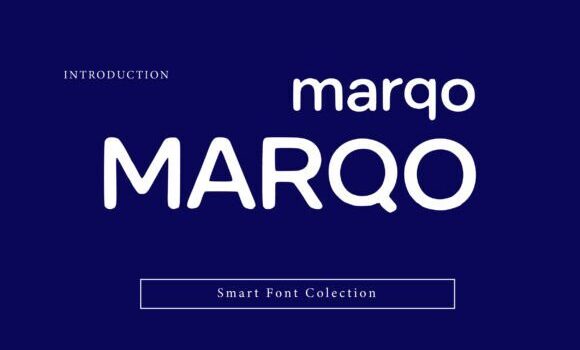
marqo
Marqo Font – Free Download Introduction to Marqo Font Marqo is a playful and friendly sans-serif font with rounded shapes and a natural pen-drawn feel. 📸 Preview Gallery 2 images 📌 Product Name Marqo Font 👤 Author Wow Magic 📂